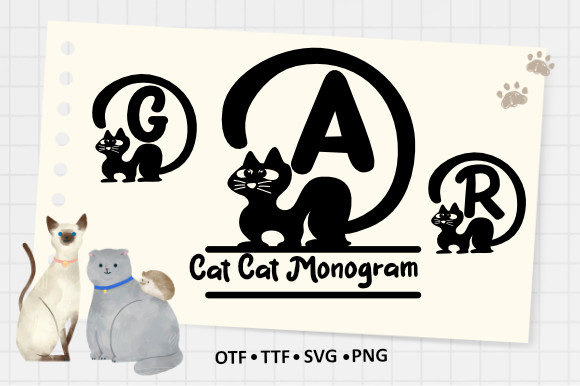
The Purrfect Font: A Deep Dive into Cat Cat Monogram
I’ll never forget the time I was working on a custom wedding invitation project, and my client asked for a font that was “whimsical, yet elegant.” I scoured the internet, trying out font after font, but nothing seemed quite right. That was until I stumbled upon Cat Cat Monogram. This dainty and unique decorative font quickly became the star of the show, and I’m excited to share its charm with you.
So, what makes Cat Cat Monogram so special? Let’s dive into the good stuff:
- ✨ Unique and eye-catching design that’s perfect for making a statement
- ✅ Easy to read and pairs well with a variety of font combinations
- 💕 Delicate and elegant, making it ideal for love letters, invitations, and other special projects
Of course, no font is perfect, and Cat Cat Monogram does have a few quirks:
- 🤔 Limited character set, which may limit its use for longer texts or paragraphs
- ⚠️ May not be suitable for very small font sizes, as some details can get lost
A Practical Guide to Using Cat Cat Monogram
Now that we’ve covered the basics, let’s get into the nitty-gritty of using Cat Cat Monogram in your designs.
- Experiment with OpenType features, like ligatures and stylistic alternates, to add some extra flair to your design
The Story Behind Cat Cat Monogram
While the true story behind Cat Cat Monogram remains a mystery, it’s easy to imagine a designer sitting with their feline friend, pouring over font designs and inspiration. Perhaps the designer was looking for a way to capture the playfulness and elegance of their cat’s personality in a font. Whatever the inspiration, Cat Cat Monogram is a true gem.
| What makes Cat Cat Monogram so unique? | Cat Cat Monogram’s unique blend of elegance and playfulness sets it apart from other fonts. |